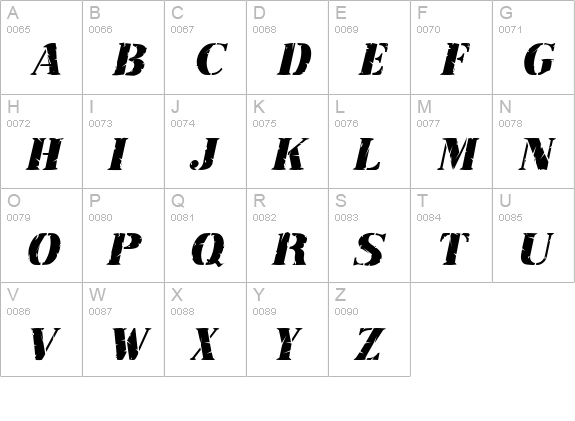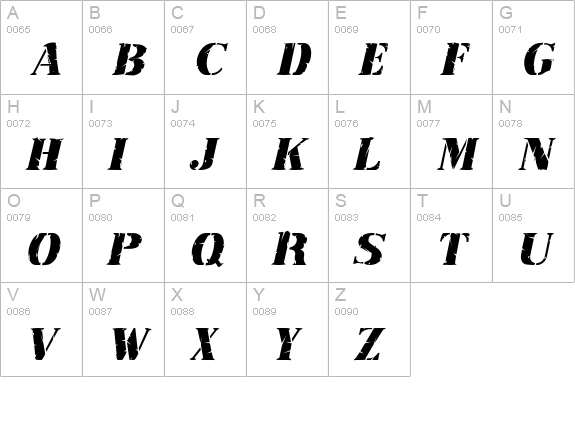
Rubber Stamp Italic is a distinctive, italic variant in the Rubber typeface family \xE2\x80\x94 well suited to design and typography projects.
Rubber Stamp Italic font is a unique and eye-catching typeface that exudes a sense of vintage charm and authenticity. With its distinctively slanted design and rough edges, this font is perfect for adding a touch of personality and character to your projects. Whether you're creating invitations, posters, or packaging designs, Rubber Stamp Italic font will make your text stand out in style. The best part? You can get your hands on this fantastic font for free! Simply head over to FontsMarket.com to download Rubber Stamp Italic font and start using it in your creative endeavors today. Don't miss out on this opportunity to add a touch of retro flair to your designs with this freely available font.